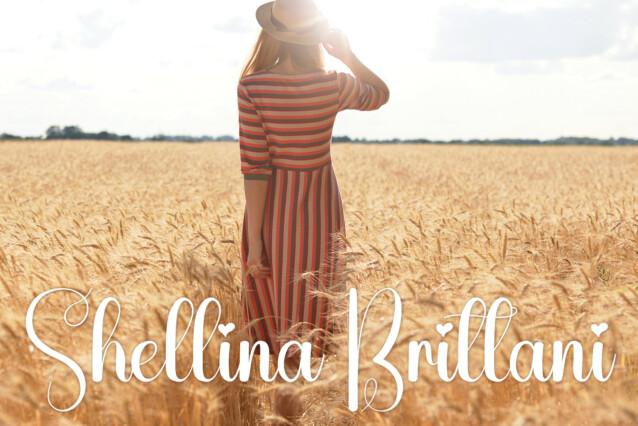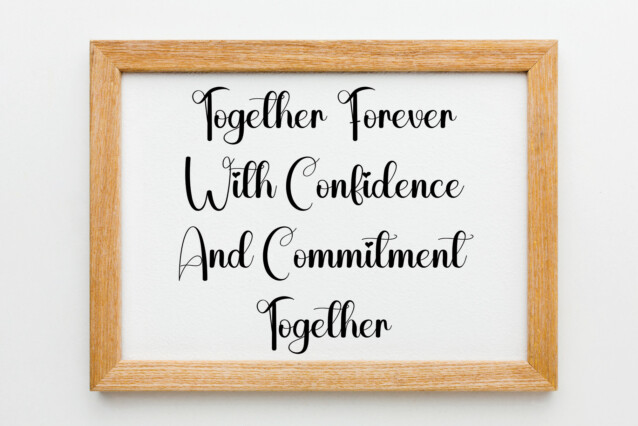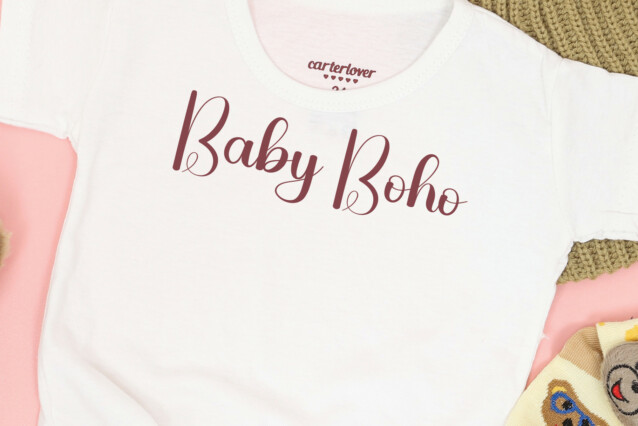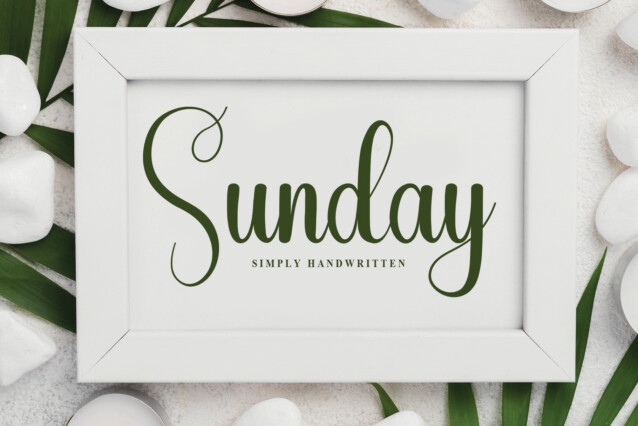
Saturday Script Font
Saturday Script Font is a sweet and friendly handwritten font. Neat and fresh, this font is ideal for writing wedding invitations, cards, or any other design that might need a fun touch!